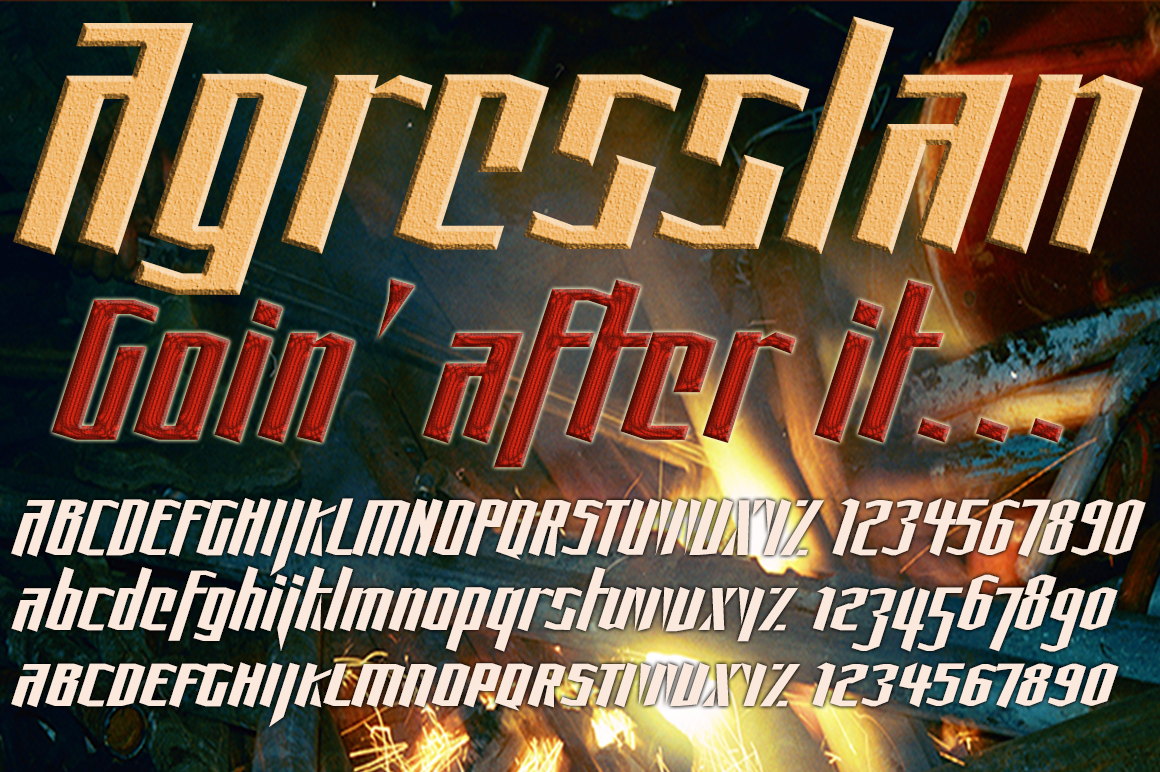
Agresslan Font
This was just fun and outrageous. I did this doodling when I was still a graphic/designer art director. This was a decade before I started seriously designing fonts. It's just fun.